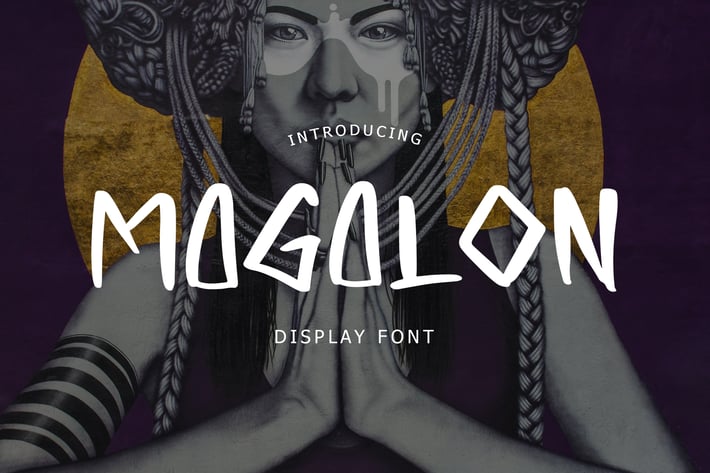
Magalon Unique Display Font
Magalon Unique Display Font is a unique and extraordinary display font that will make any kid-themed design stand out!
Magalon Unique Display Font is perfect for branding projects, logo, T-shirt designs, book cover design, social media posts, advertisements, product packaging, product designs, label, watermark, invitation, stationery, and any projects.